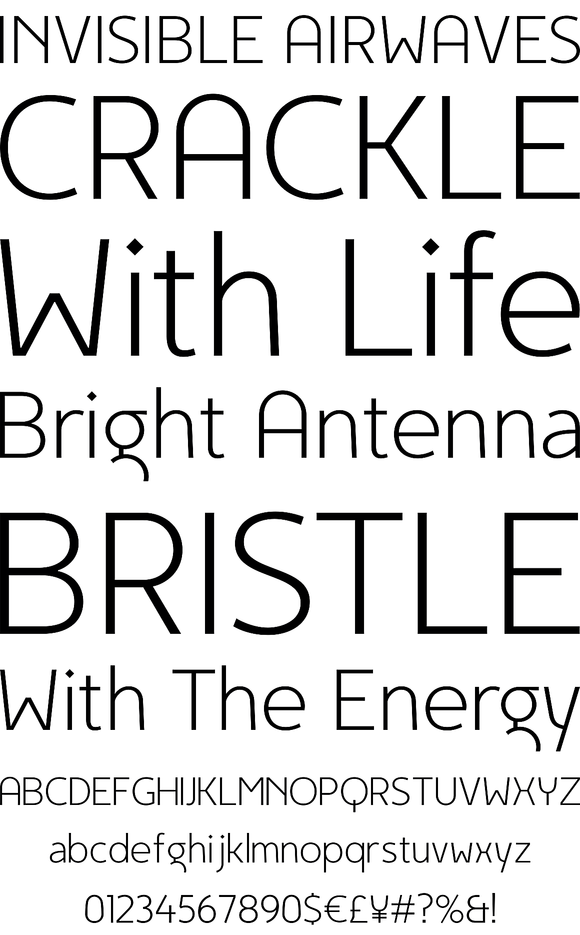
Egon Sans
Foundry: TipografiaRamis
Egon Sans is a geometric sans serif typeface family built in ten styles - extra-light, light, regular, bold and black weights in roman and italic respectably. Egon Sans is an extension of Egon (Slab Serif) family, designed in 2008. The typeface is designed with industrial and architectural flavor, as homage to Egon Eiermann, one of Germany's great architects of 20th century. Egon Sans is ideal as text and display font for publication use. Egon Sans is released as OpenType single master with a Western CP1252 character set.